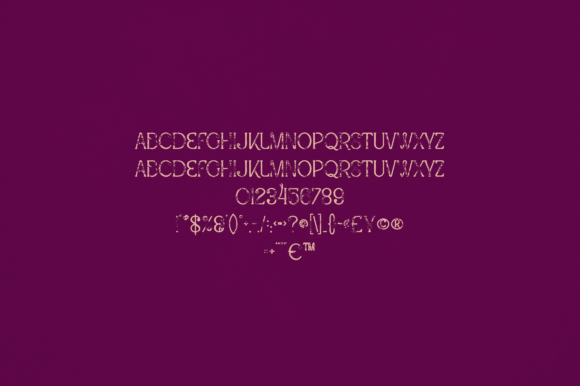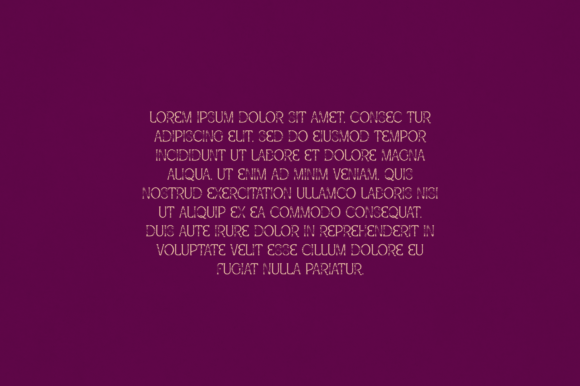
The Designer’s Delight: Uncovering the Elegance of Allegra Font
I’ll never forget the time I was working on a branding project for a luxury home goods client. I had spent hours perfecting the logo design, but something felt off. The font I had chosen just wasn’t elevating the design to the level I knew my client deserved. I scoured font libraries and design blogs, but nothing seemed quite right. That’s when I stumbled upon Allegra Font – a game-changer for typography enthusiasts like myself! 💡
As a designer, I’m always on the lookout for fonts that can bring a touch of elegance and sophistication to my projects. Allegra Font has quickly become a go-to in my toolkit, and here’s why:
- ✨ Elegant and Versatile: Allegra is perfect for a wide range of design applications, from logos and branding to headlines and plain text.
- ✅ Highly Legible: The font’s clear and refined lines make it easy to read, even at smaller sizes.
- 💫 Stunning OpenType Features: Allegra boasts a range of OpenType features, including stylistic alternates, ligatures, and glyphs, giving you plenty of creative options.
Of course, no font is perfect, and Allegra is no exception. A few things to keep in mind:
- 🤔 Limited Condensed Styles: While Allegra offers a range of weights and styles, the condensed options are somewhat limited. This might make it less suitable for very specific design applications.
- ⚠️ Glyph Support: Some users have reported issues with glyph support in certain software. However, this is largely dependent on the program being used.
Exploring Alternatives: Similar Fonts to Allegra
If you’re looking for fonts with a similar personality to Allegra, consider these alternatives:
- Playfair Display: A luxurious, elegant font perfect for headlines and titles. Its refined lines and classic feel make it ideal for high-end branding projects.
- Merriweather: A classic serif font with a sophisticated, elegant feel. Its subtle flair and refined lines make it suitable for body text and captions.
- Lato: A modern sans-serif font with a clean, elegant aesthetic. Its geometric lines and subtle curves make it perfect for UI design and digital applications.
- Great Vibes: A script font with a luxurious, elegant feel. Its flowing lines and refined connections make it ideal for high-end branding and packaging design.
The Story Behind Allegra: A Designer’s Inspiration
While the origins of Allegra Font are shrouded in mystery, it’s easy to imagine a designer pouring their heart and soul into crafting such a beautiful typeface. Perhaps they were inspired by the elegant lines of classic serif fonts, combined with the sophistication of modern sans-serifs. Whatever the story, Allegra has undoubtedly become a beloved font among designers and typography enthusiasts.
Q: What makes Allegra Font so special?
A: Allegra’s unique blend of elegance, versatility, and legibility makes it a standout font for a wide range of design applications.
Q: Does Allegra Font support OpenType features?
A: Yes, Allegra Font boasts a range of OpenType features, including stylistic alternates, ligatures, and glyphs, giving you plenty of creative options.
Q: Is Allegra Font suitable for body text?
A: While Allegra is elegant and refined, it’s best suited for headlines, titles, and short paragraphs. For longer body text, consider a font with more traditional serif or sans-serif lines.